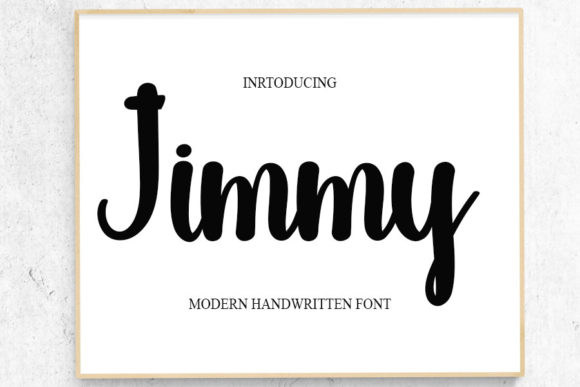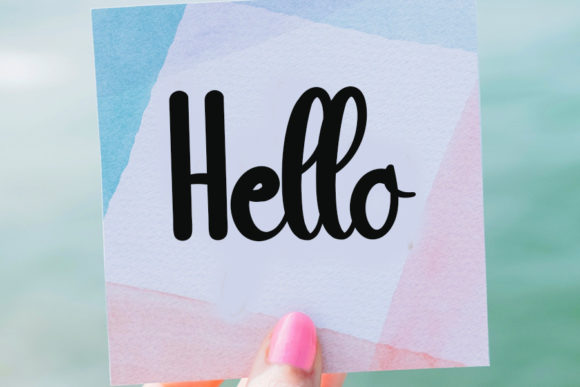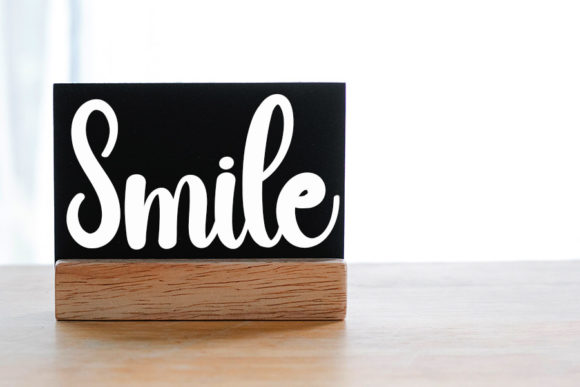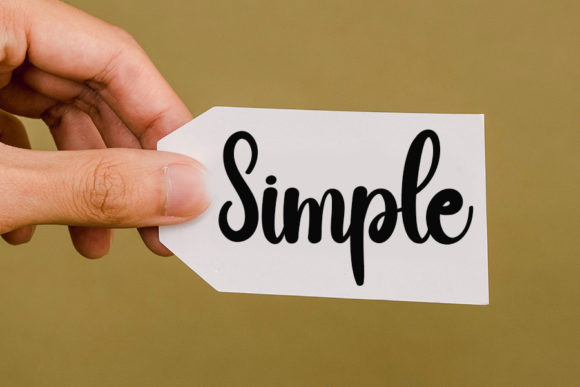
About Jimmy Font
Jimmy is more than just a font; it’s a welcoming embrace in the world of handwritten elegance. Each stroke has been meticulously crafted to radiate an air of friendliness, inviting viewers to engage and connect. This font seamlessly blends timeless calligraphic influences with a modern, revitalizing twist, making it an instant classic that stands the test of time.
As you immerse yourself in the strokes of Jimmy, you’ll feel its warmth and charm wash over you. It’s not just a collection of letters; it’s a conduit for forging connections and sparking conversations. Jimmy’s design is a testament to the careful balance between tradition and innovation, making it a versatile choice for a wide array of design projects.
Jimmy maintains the grace of calligraphy, yet it exudes a contemporary freshness that breathes life into your designs. Its characters don’t merely exist on the page; they dance, they converse, and they create an immersive experience that captivates the senses. Whether you’re crafting invitations, branding materials, or any form of visual communication, Jimmy becomes your trusted companion in storytelling.
What sets Jimmy apart is its ability to resonate with people on a personal level. It exudes an approachability that transcends the confines of typography, forging a genuine connection with the audience. As you incorporate Jimmy into your designs, you’ll witness how it infuses them with a sense of familiarity and relatability, elevating the impact of your message.
In a world where design choices matter, Jimmy offers a harmonious blend of sophistication and contemporary flair. It’s more than just a font; it’s a tool for creating memorable experiences. Let Jimmy be the brush that paints your creative vision onto the canvas of reality, where every stroke speaks volumes and every letter is an invitation to engage.
So, as you embark on your design journey, remember that Jimmy is not just a font option – it’s a gateway to forging meaningful connections through design. Allow its friendly charisma to guide your hand and watch as your projects come to life, resonating with authenticity and leaving a lasting impression on all who encounter them.